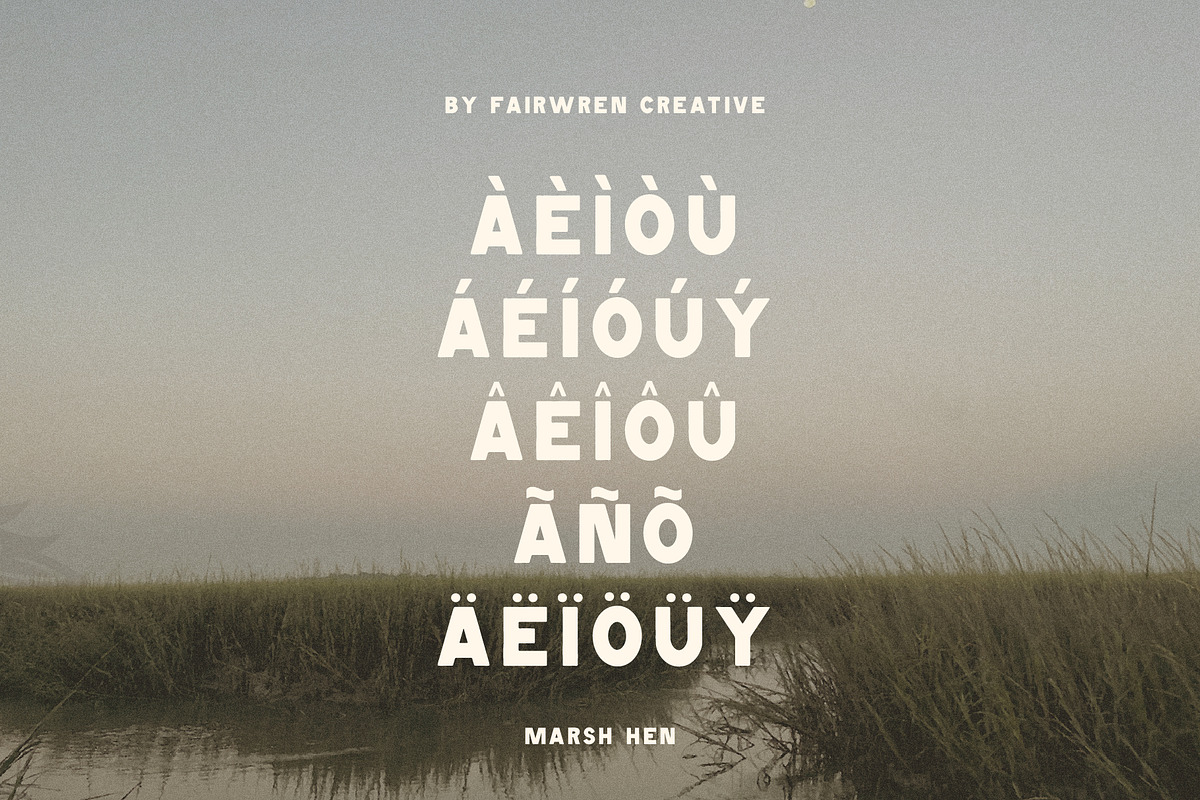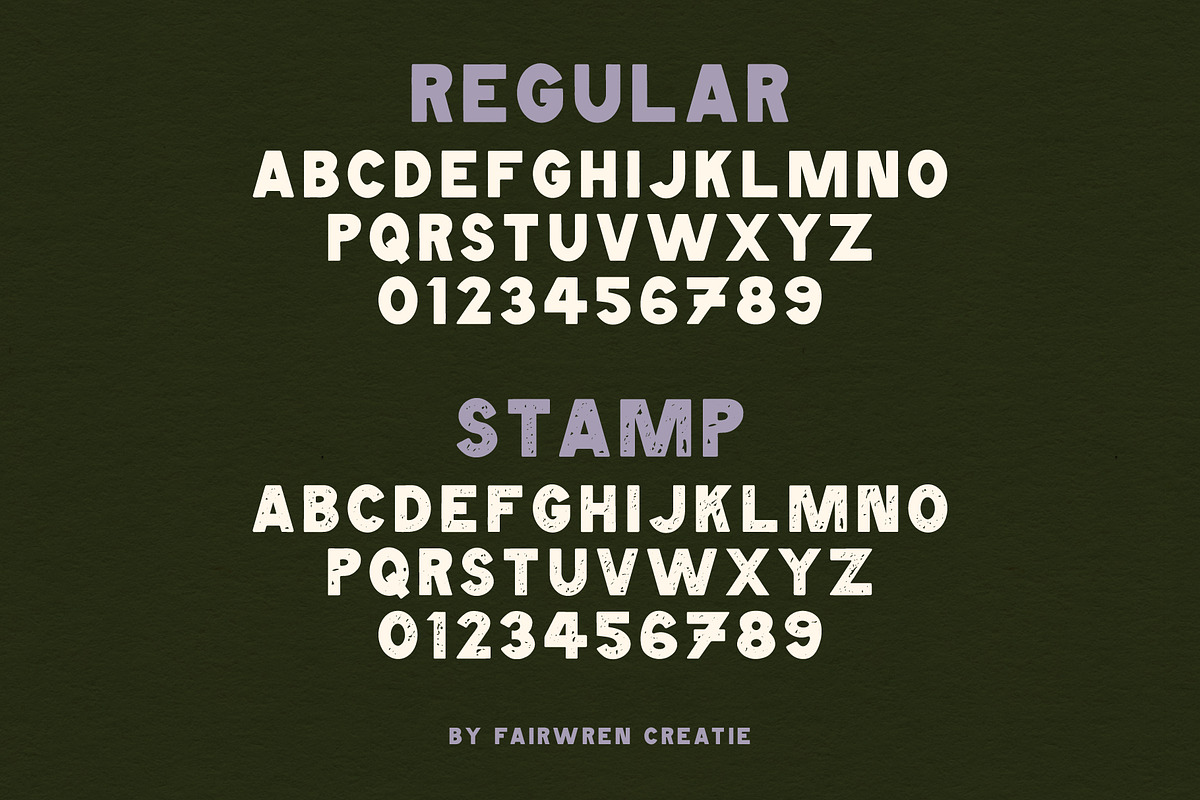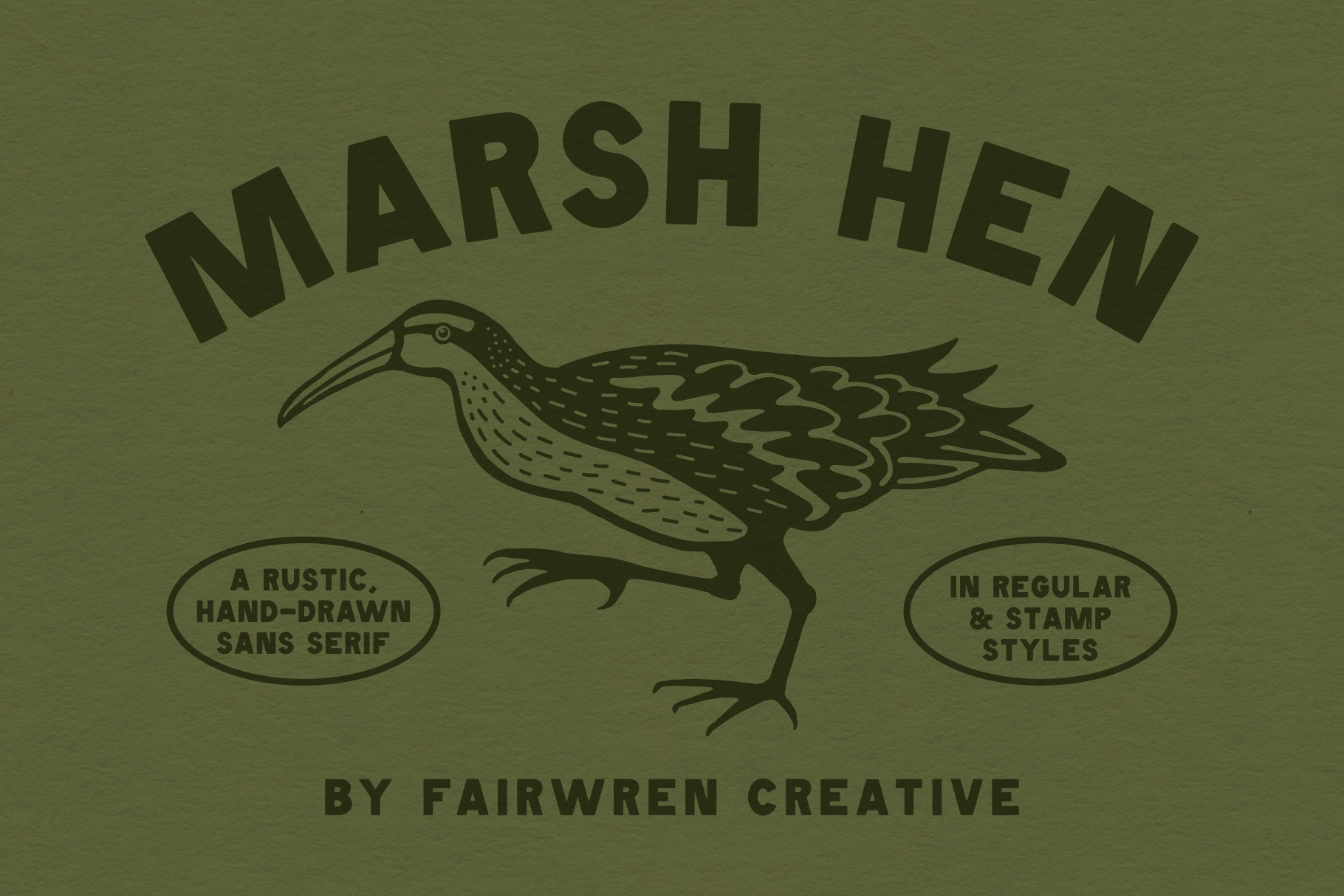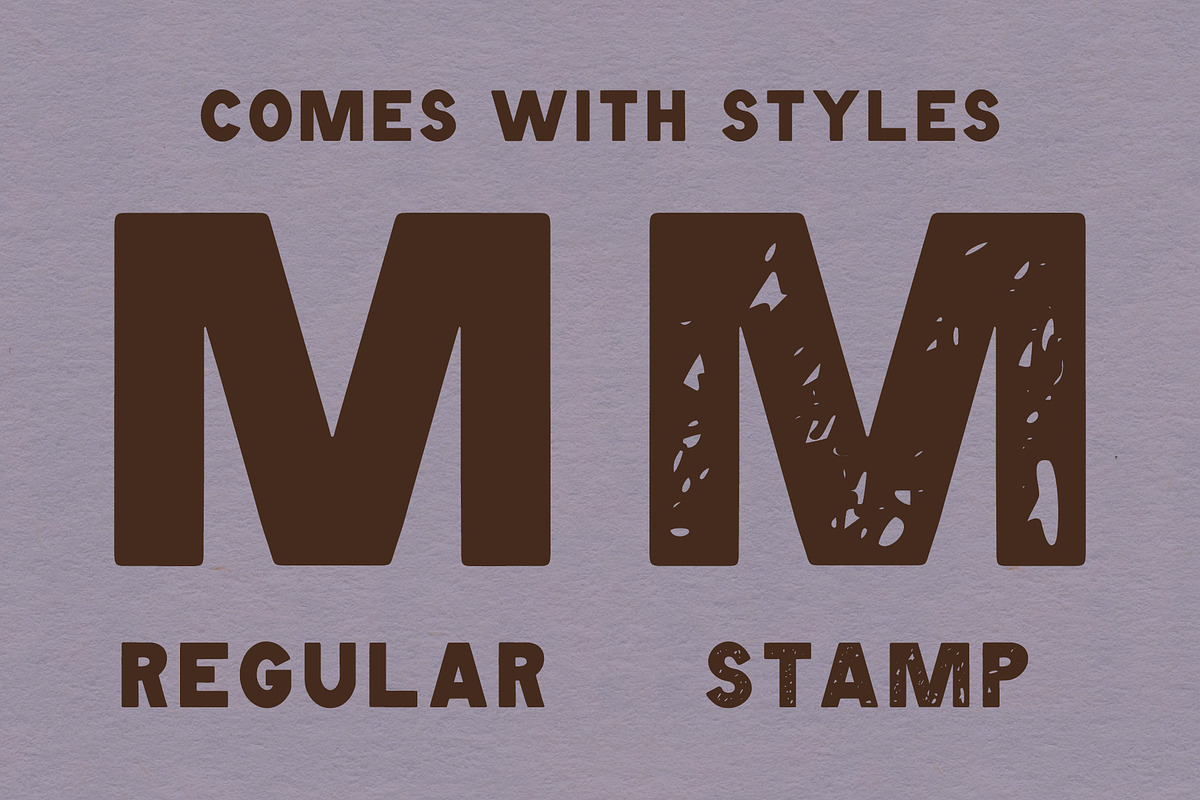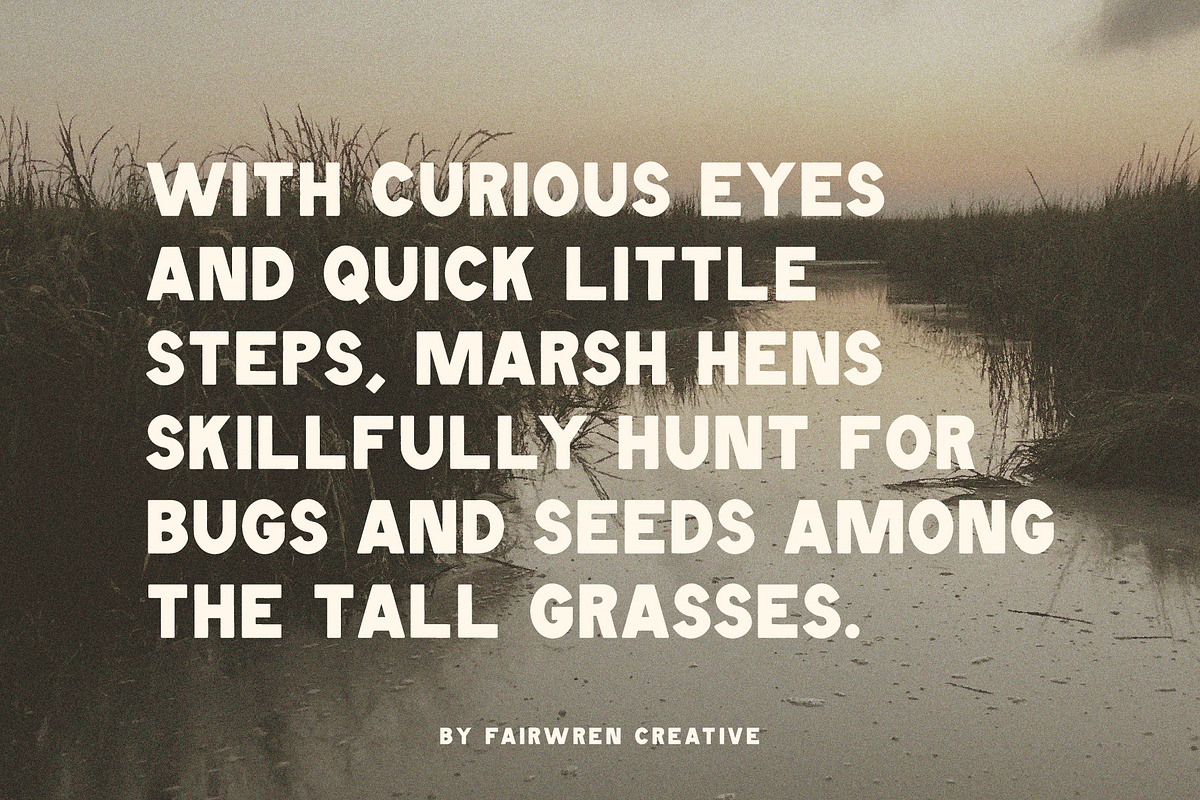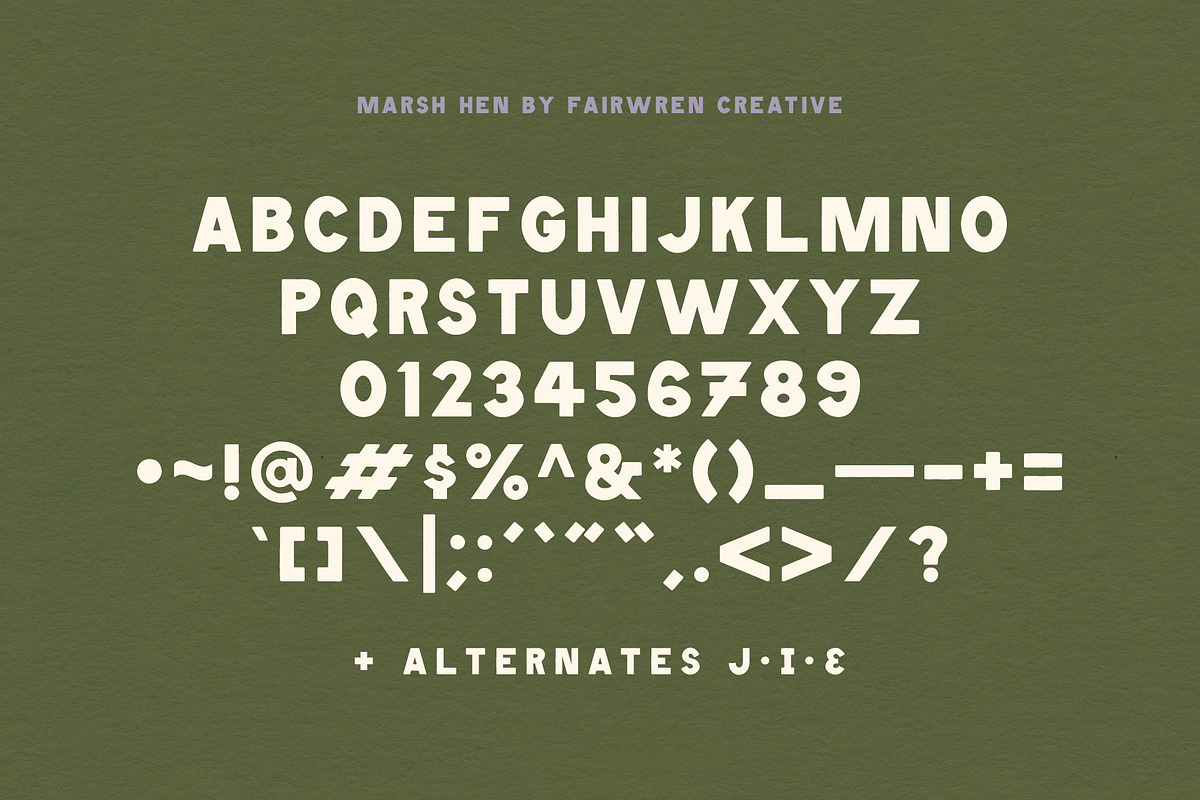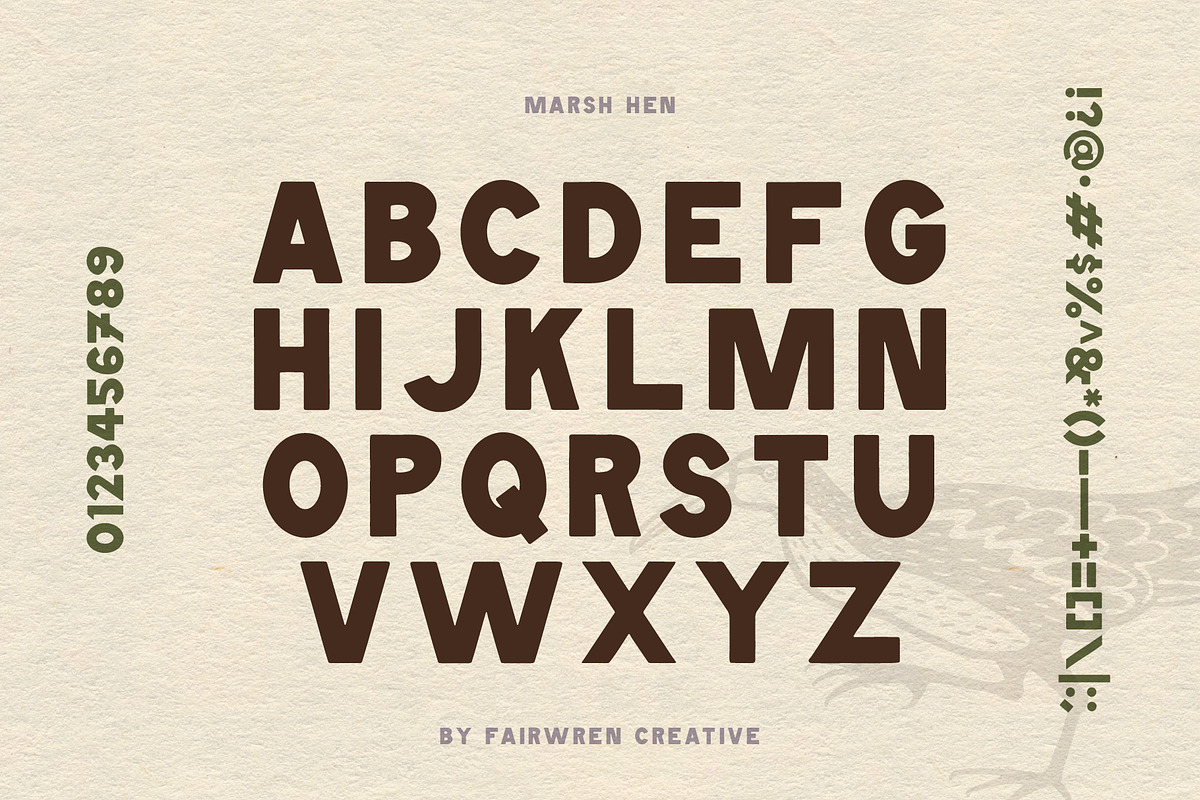
Marsh Hen Fonts
Like a marsh hen strutting through the reeds, Marsh Hen adds a playful, rustic touch to your designs with its bold, hand-drawn style.
Marsh Hen is created in both regular and stamp styles.